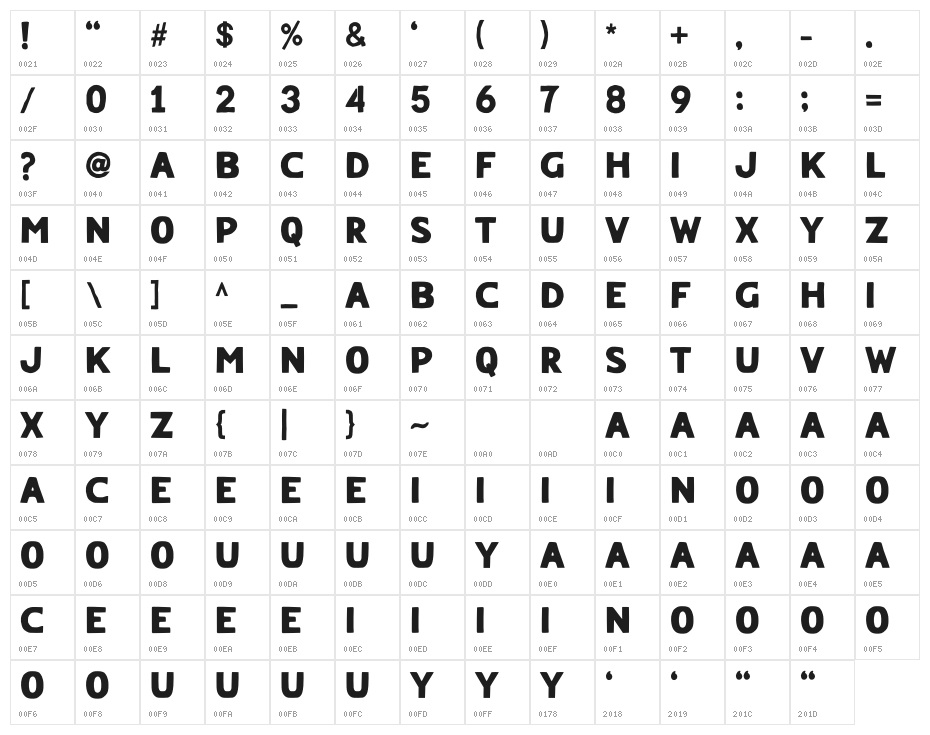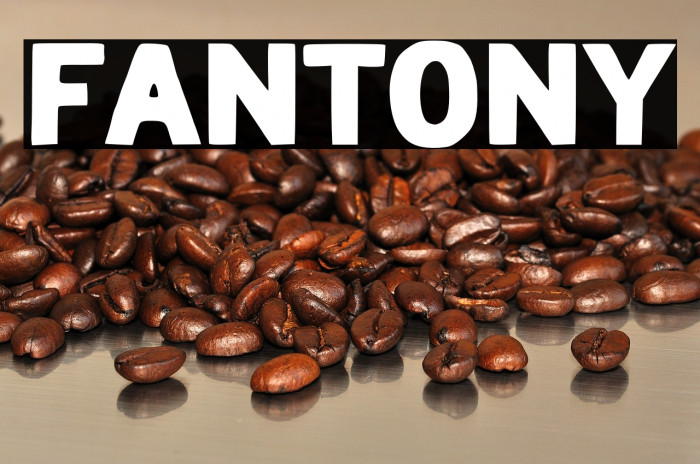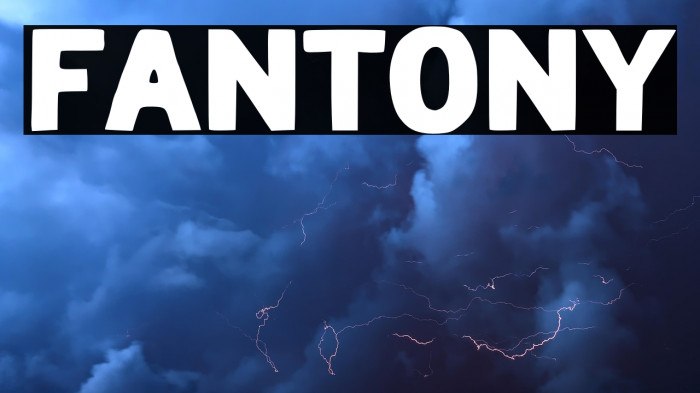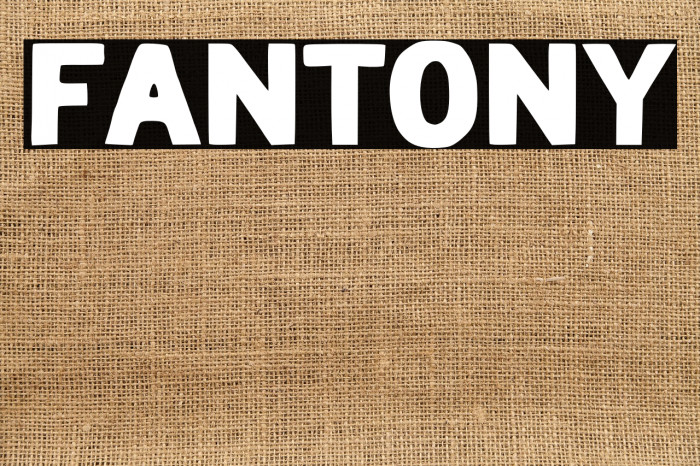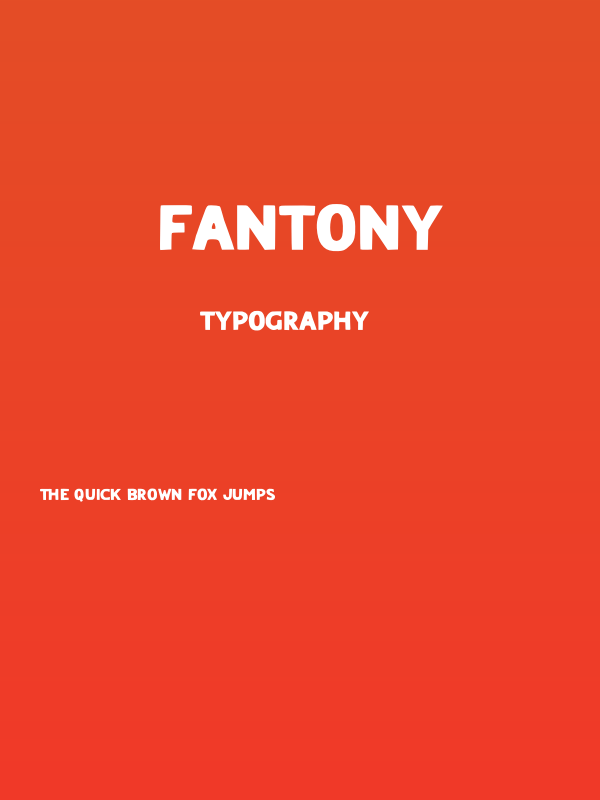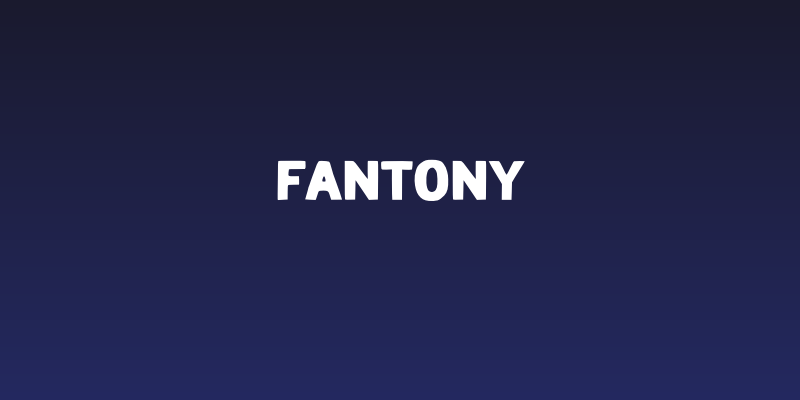
FANTONY Font
FANTONY Description
This font features a bold and playful design with a slightly irregular and hand-drawn appearance. The characters are thick and rounded, giving them a friendly and approachable feel. The uppercase and lowercase letters maintain a consistent style, with a slight tilt that adds a dynamic touch. The numerals and special characters are equally bold, ensuring readability and impact. This font's unique style makes it stand out, perfect for projects that require a touch of personality and creativity.
| Overall Style | Playful, Creative |
| Proposed Projects | Ideal for children's books, playful branding, posters, and creative advertisements. |